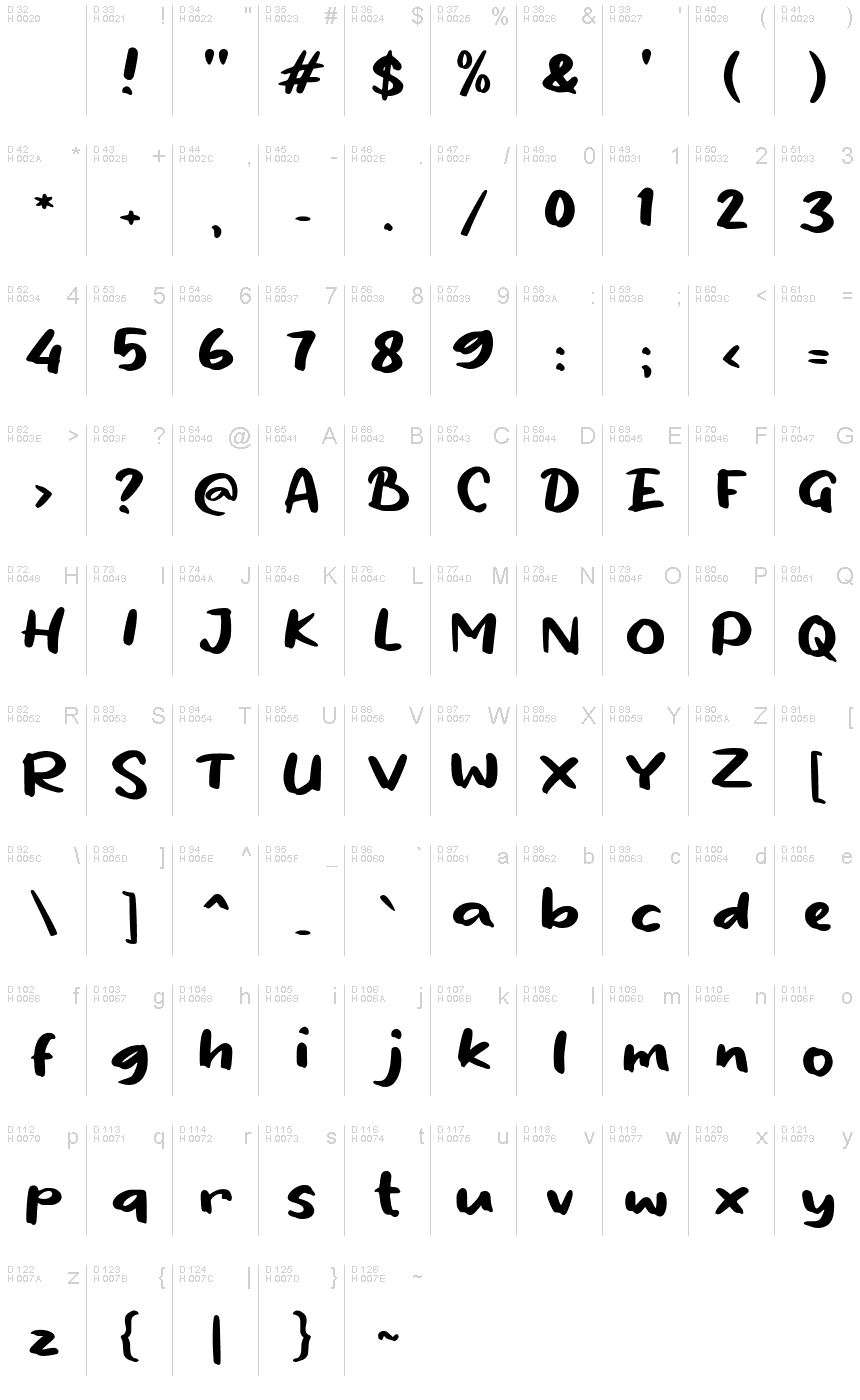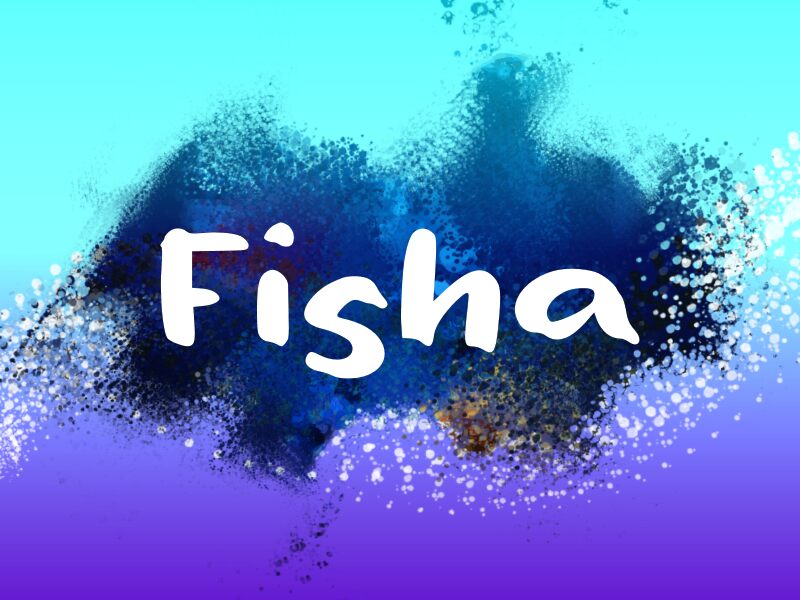
Fisha
Fisha, a captivating brush font by wep, exudes boldness and creativity. Its semi-expanded width adds a touch of uniqueness to any project.
Perfect for designing eye-catching logos that demand attention or creating striking headlines that leave a lasting impression. With its expressive strokes and artistic flair, Fisha is also an excellent choice for crafting stunning invitations that bring joy to any celebration. Whether it's designing album covers for edgy music artists or crafting visually appealing posters for art galleries, Fisha is the go-to font for adding a touch of vibrancy and sophistication to your creative endeavors.